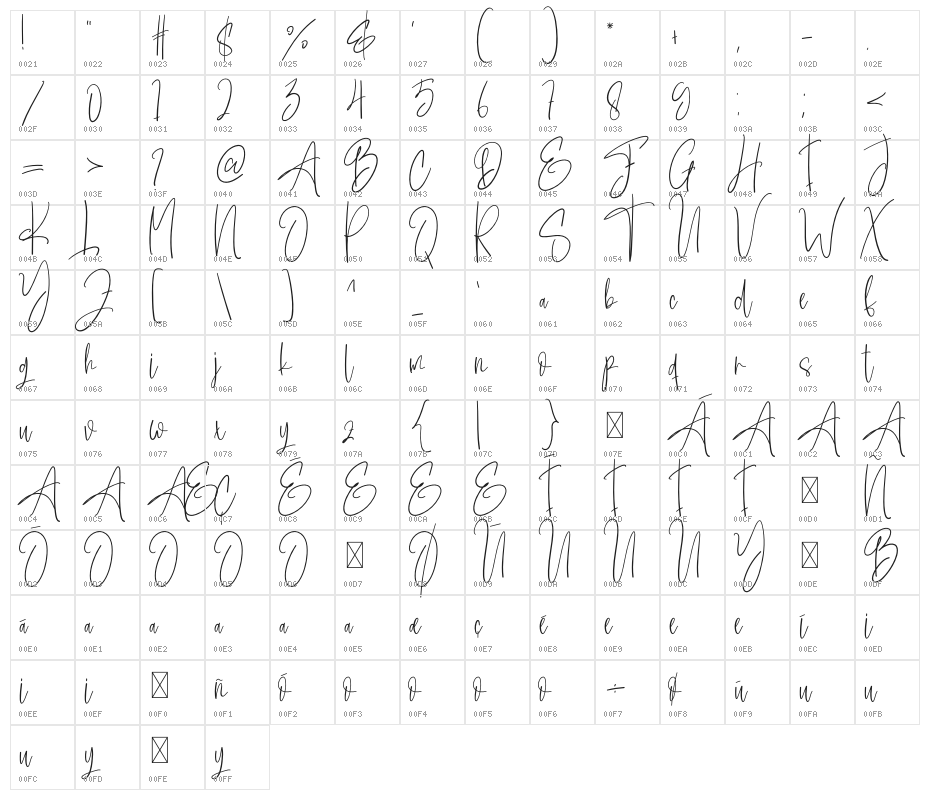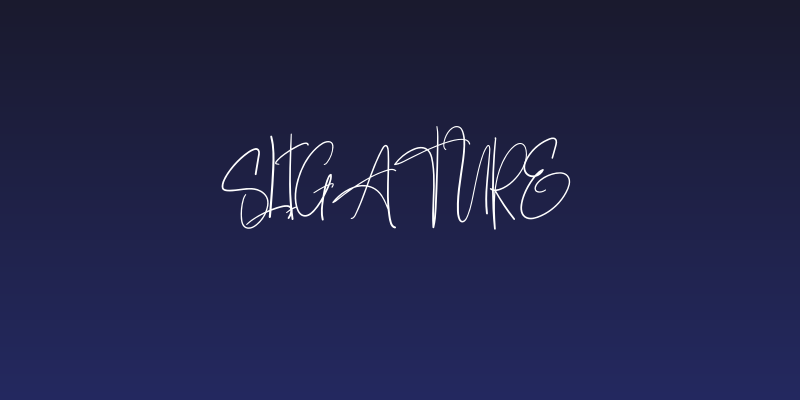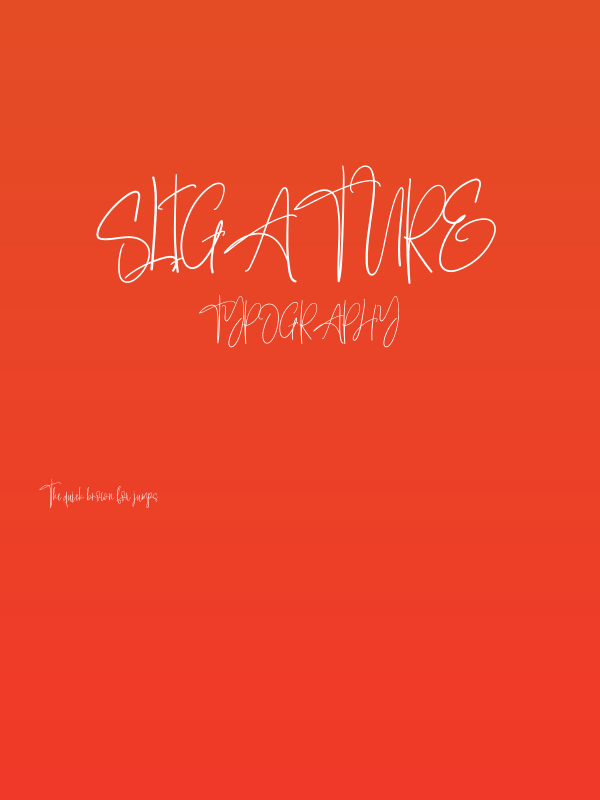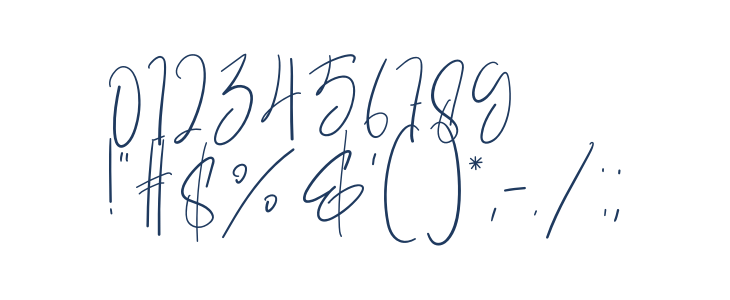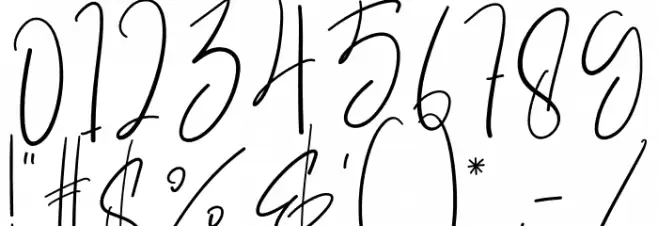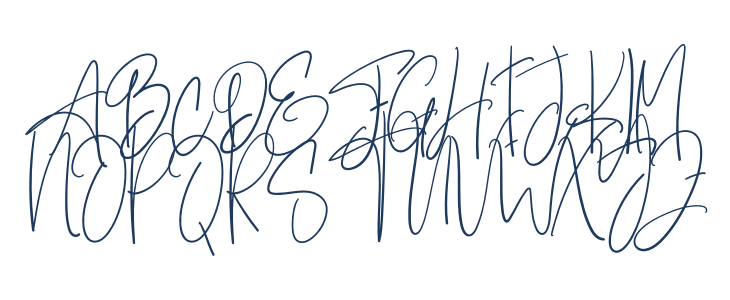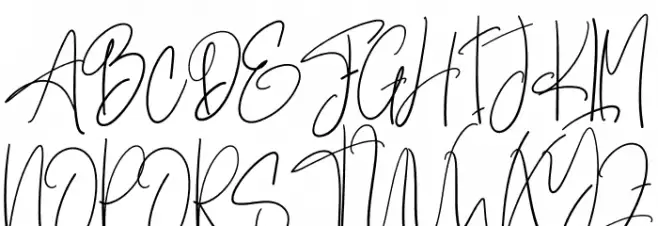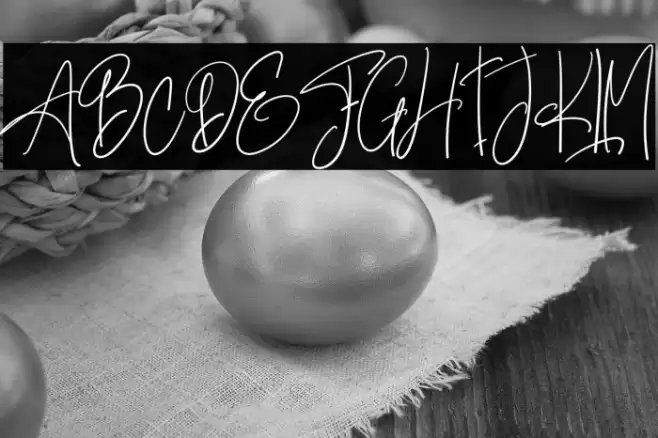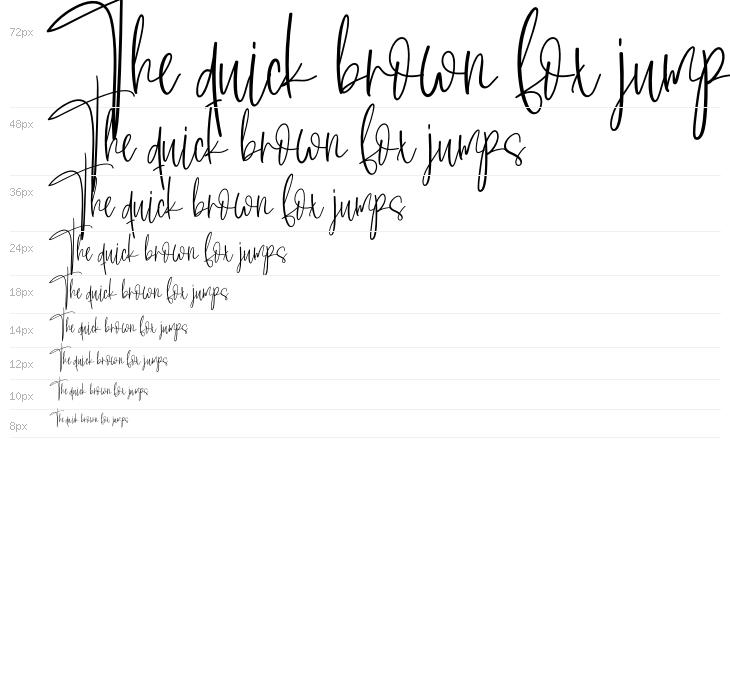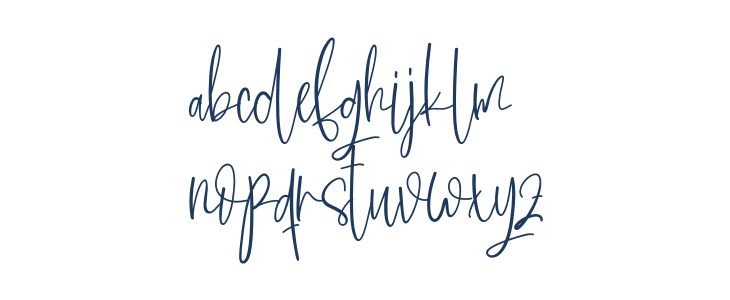
Sligature Font
Sligature Description
A handwritten, cursive script font with a casual, flowing style, featuring tall, elongated characters and a playful, informal appearance.
| Overall Style | Casual, Personal, Playful |
| Use Case | Invitations, Greeting Cards, Personal Branding, Creative Projects |